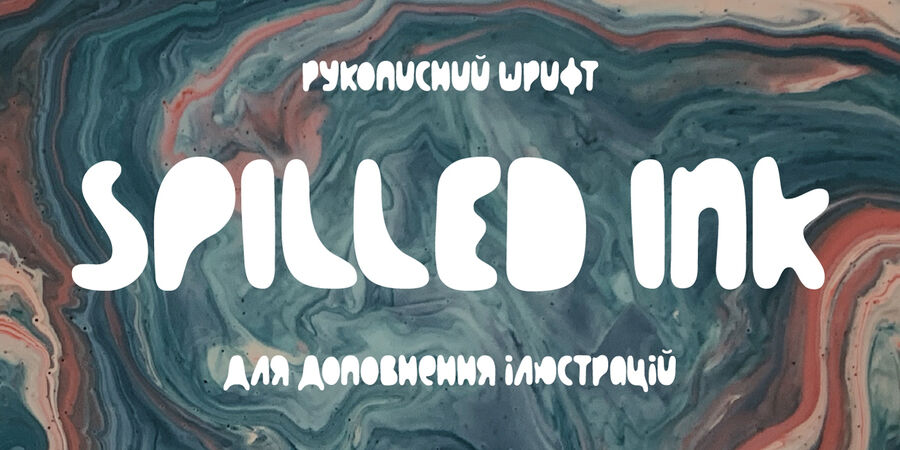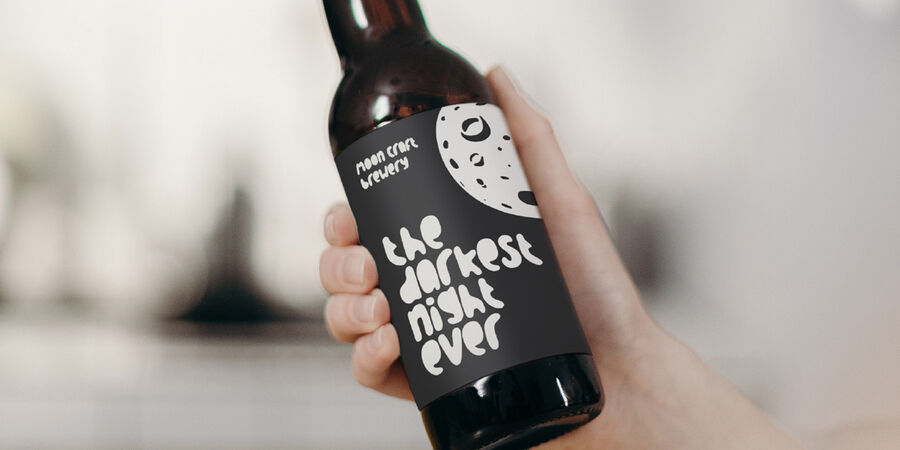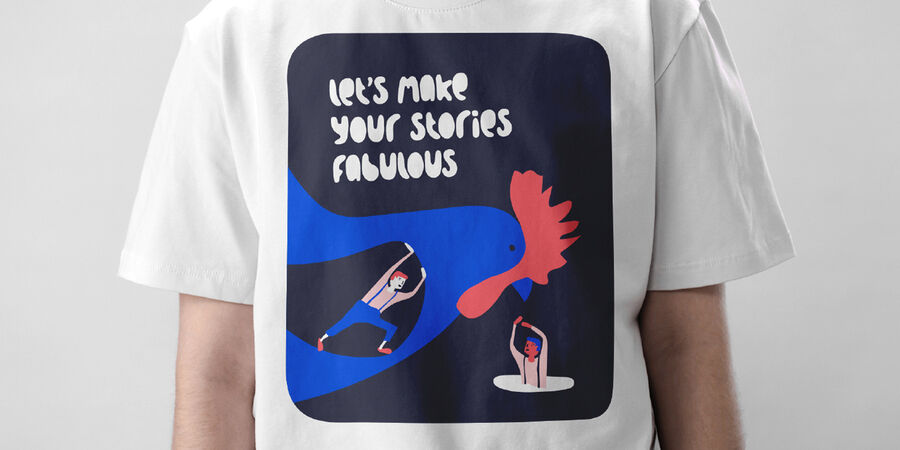
About Spilled Ink is a handwritten typeface designed to complement illustrations. Inspired by the idea of spilled ink that spreads and fills the shape of letters, the typeface has no sharp corners and looks smooth, soft, and cute. Spilled Ink is intended for use in headlines, so lowercase letters have the same height as uppercase letters, allowing them to be used as alternates. Make your stories fabulous with Spilled Ink!